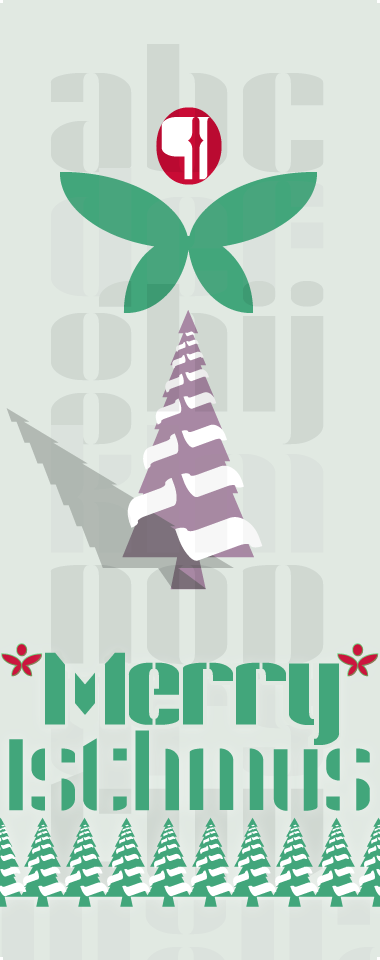
A family of fonstructions: nine parametric variations in four weights utilizing advanced filters and bleeding-edge composite stacks. Most excitingly, overshoots are tackled with a combination of vertical filtering and composite bricks. Enjoy a private clone to see how it’s done.